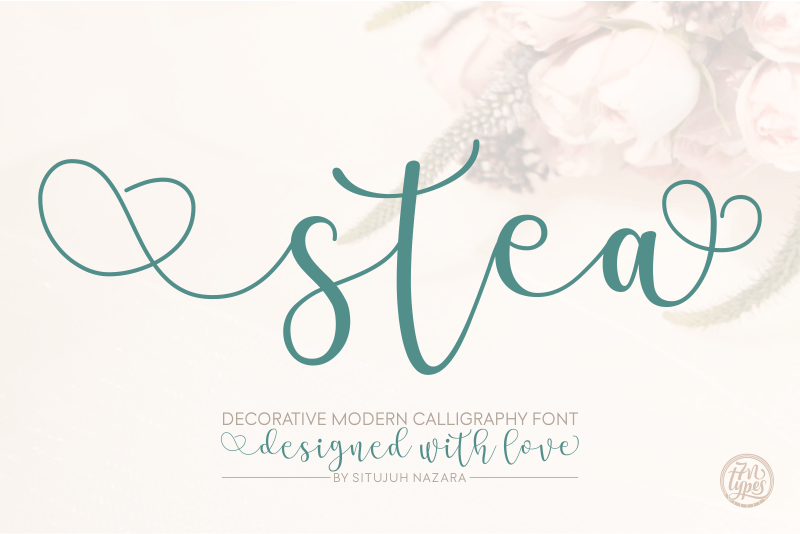
Font name: | Stea |
Stea is a fun, decorative script font. It comes with stunning decorative characters that can be used to decorate the end and beginning of words as well as gluing words together. This allows for unique combinations that make your designs stand out. Stea Font is design to make all the users are easily use it. Use numbers as borders or patterns to your design. Personal use: FREE (Donation is much appreciated!) Commercial use: Buy it on Creative Fabrica: https://www.creativefabrica.com/product/stea/ref/87/ Contact me [c7nazara@gmail.com] or visit my website [https://7ntypes.com] if you have any request or question. Thank you. |